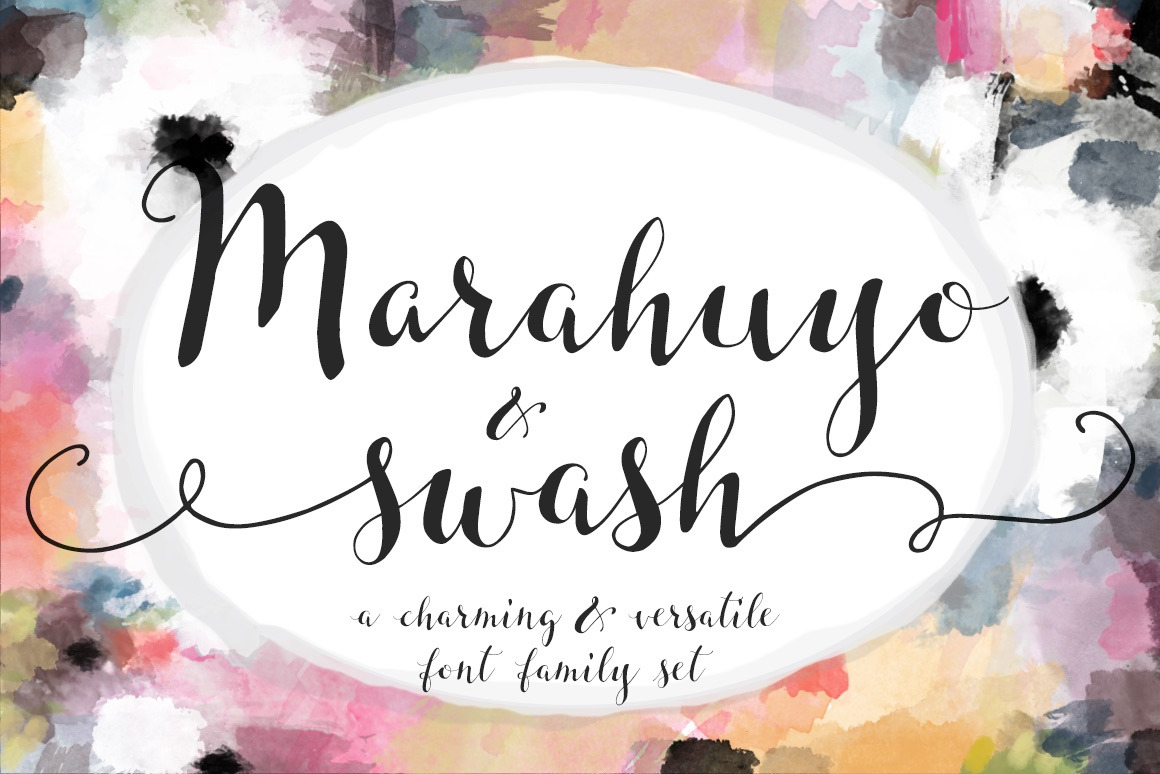
Marahuyo Font Family Set
Marahuyo Font Family Set includes two separate font files combined as a family, Marahuyo Regular, and Marahuyo Swash. Both include all of the main characters- uppercase & lowercase, numbers and symbols, discretionary ligatures, and a few stylistic alternates. Marahuyo Regular additionally includes initial forms (special beginning lowercase letters), and a few special ligatures. Two of the special ligatures include the word "love" and "R.S.V.P.". Marahuyo Swash includes initial and terminal forms (beginning and end swashes).
I've also made a special shortcut for you to add those cool dots between your numbers, like the ones seen on those fancy hand addressed envelopes. You will be able to quickly add those dots by typing the ^ on your keyboard. Try it out below in the live preview.